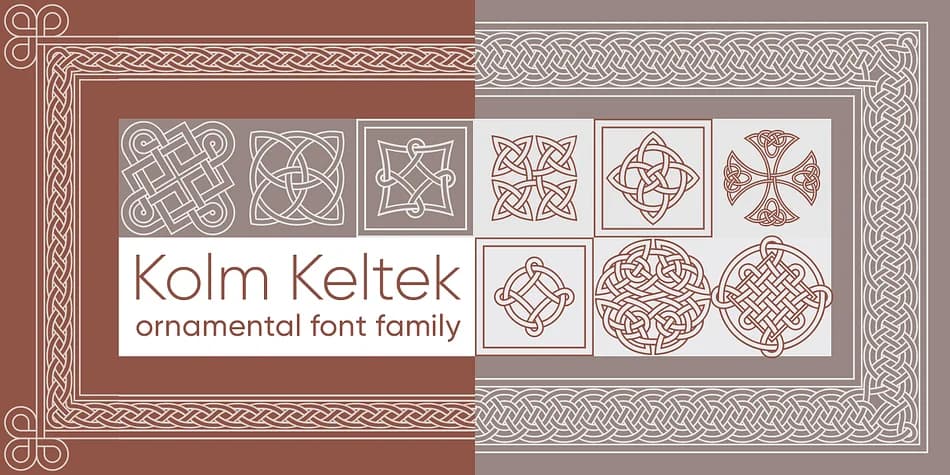
Kolm Keltek by 2D Typo is a dingbats collection rooted in Celtic manuscript traditions, split across two font files for easy organization. The library breaks down into friezes (borders) and rapports (repeating patterns), both drawn directly from historical Celtic manuscripts. What sets this apart from generic ornamental fonts is the authentic cultural basis: these glyphs come from real historical sources rather than invented decorative elements. That difference shows up immediately in print work.
The two-file structure makes it simple to load exactly what you need for any given project. Wedding invitation suites benefit from the border options, which add sophistication without looking mass-produced. Certificate and diploma designs get genuine gravitas from these patterns. Vintage label designs take on real character when you use ornaments tied to actual historical periods. Designers creating materials for historical reenactment events or Celtic heritage branding projects will find these glyphs especially useful. The repeating patterns work well alone or layered, giving you flexibility in how you compose layouts.
Kolm Keltek Font is a versatile dingbats font that works for both headings and body text. Pair it with a contrasting sans-serif or serif font to add visual interest and a clear distinction between titles and body copy.